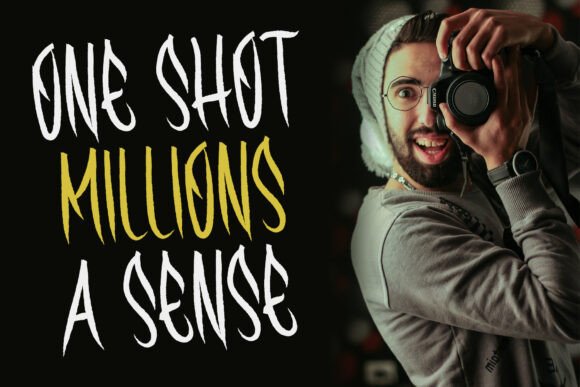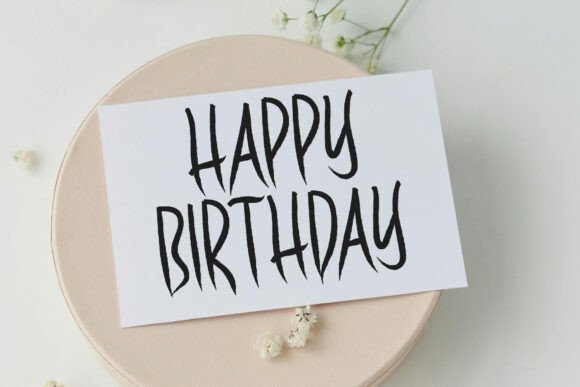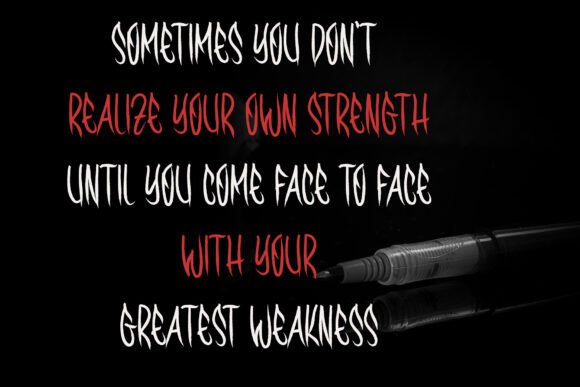
Mystic Display Font
About the Mystic Display Font
Introducing the Mystic Display Font, a beautifully crafted typeface designed to elevate your creative projects. Mystic Display is a font that captivates with its bold, fluid strokes and dynamic script style. Designed to exude strength, elegance, and charisma, this font blends the beauty of handwritten calligraphy with a modern and assertive touch. Whether you need a striking logo, a stylish headline, or an eye-catching branding element, Master Daddy delivers with confidence and flair.
Mystic Display excels in headline applications, logos, and short, impactful marketing materials such as posters or social media graphics. Its strong, elegant forms command attention and make a memorable statement. It is less suitable for body text or long paragraphs, where its highly stylized nature can hinder readability.
The font’s core personality is bold and sophisticated, yet maintains a touch of playful energy. It would be ideal for brands aiming for a modern, luxurious, or slightly rebellious image; think high-end fashion, artisan goods, or creative studios.
To balance its strength, pairing Mystic Display with a clean sans-serif like Lato for body copy or a simple geometric sans-serif for supporting text creates visual harmony. Alternatively, a delicate serif like Playfair Display could add a touch of classic elegance, softening the overall impact.
Mystic Display Font Usage Examples
Mystic Display Font Example